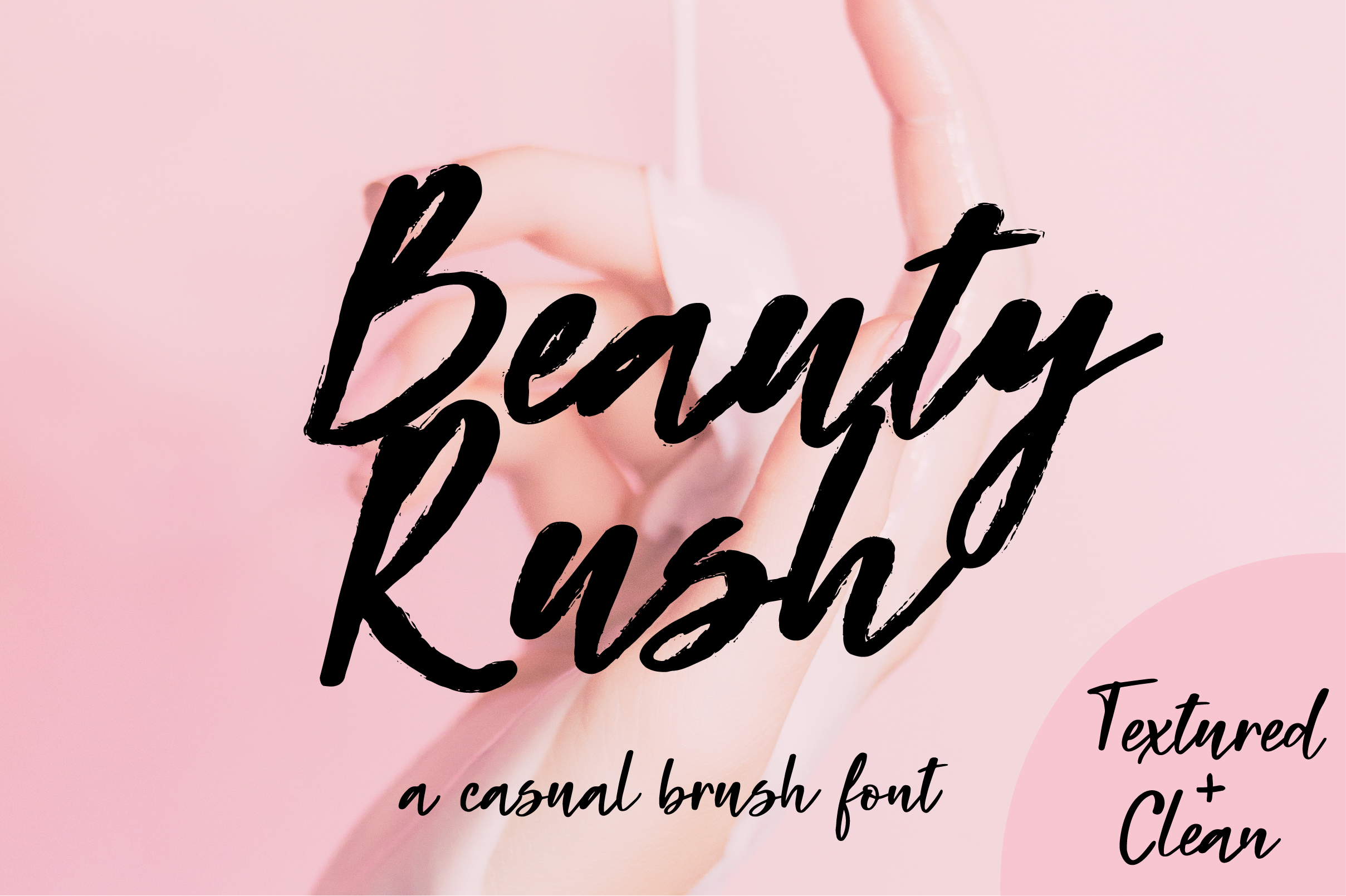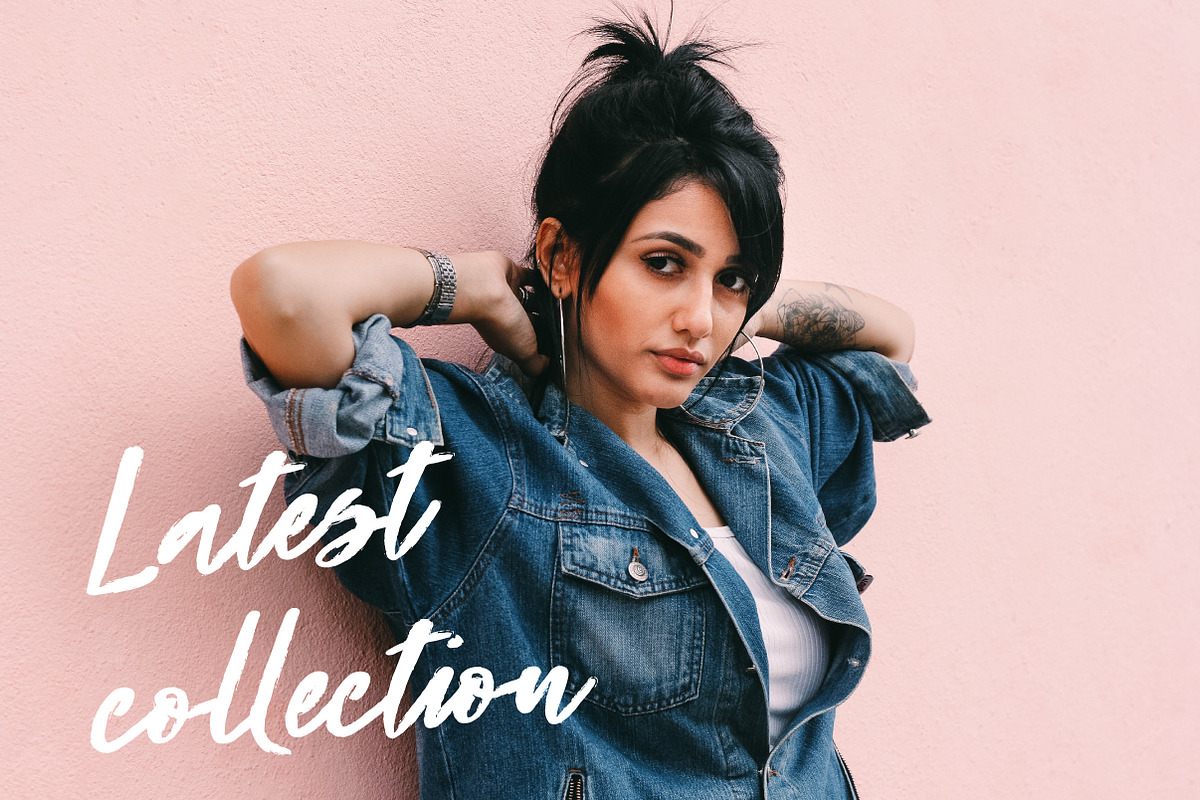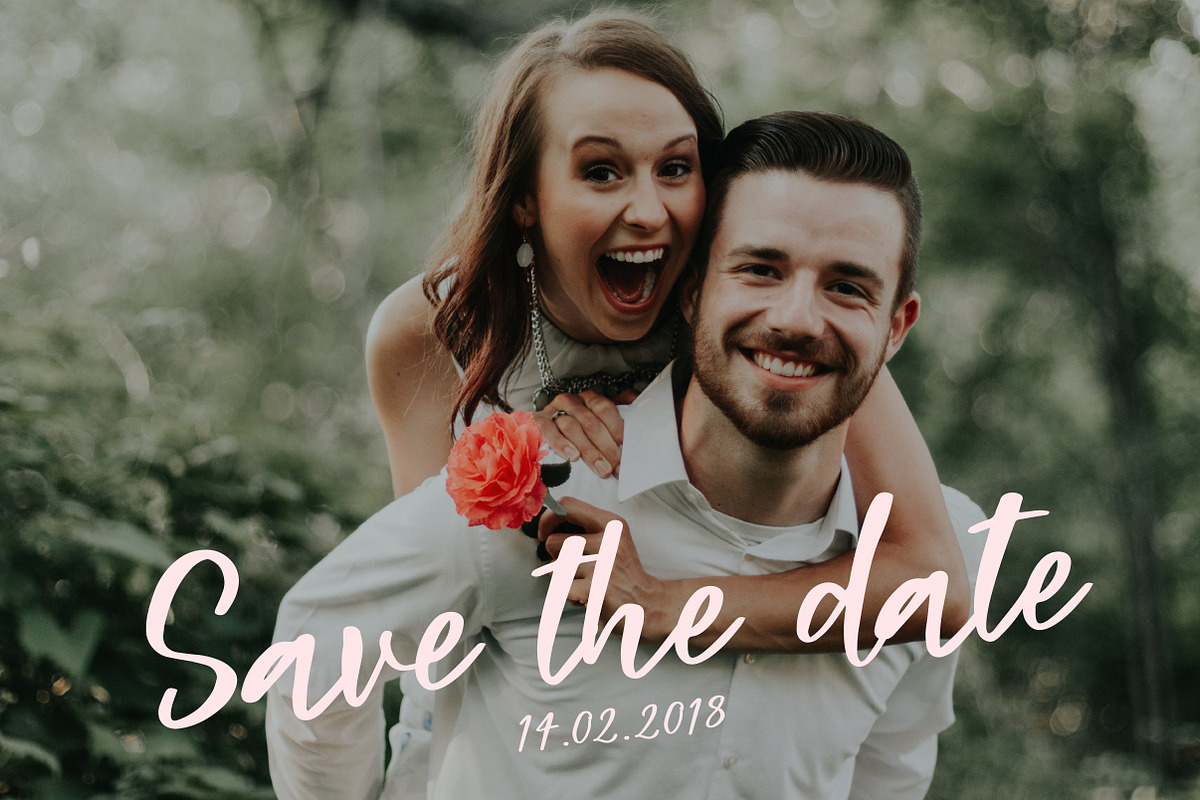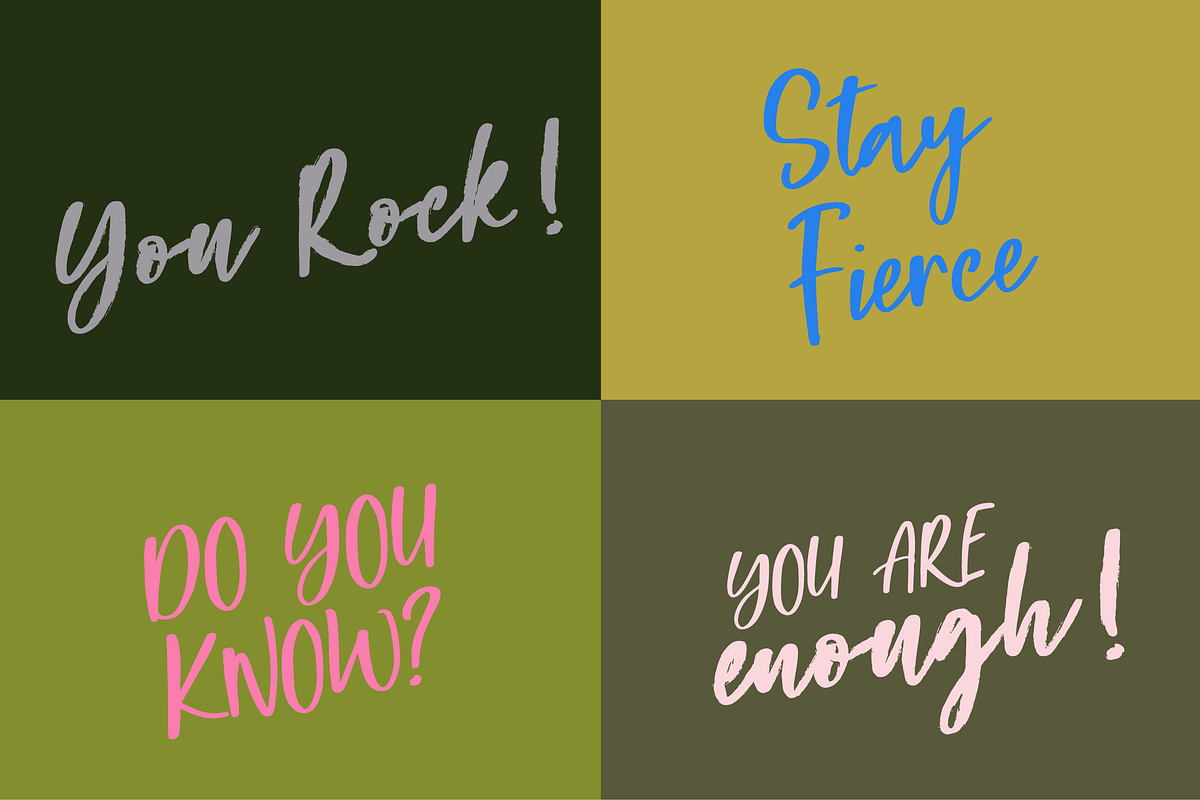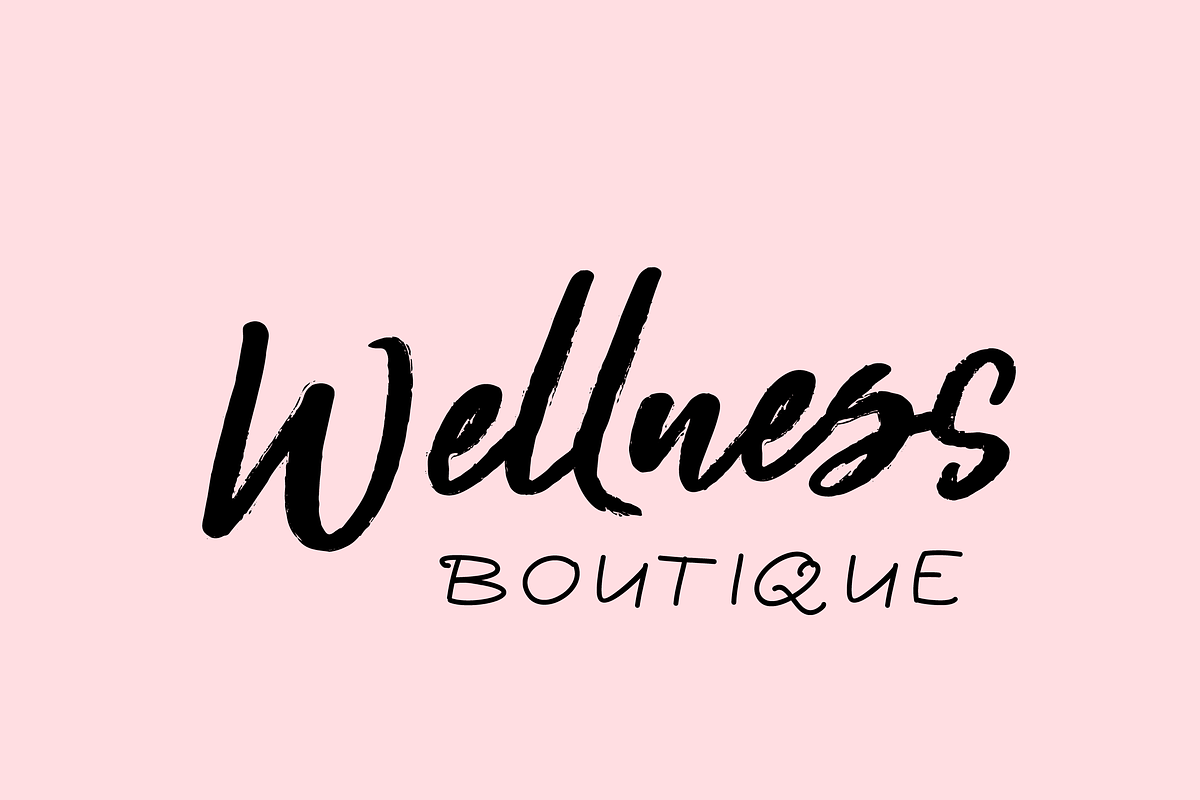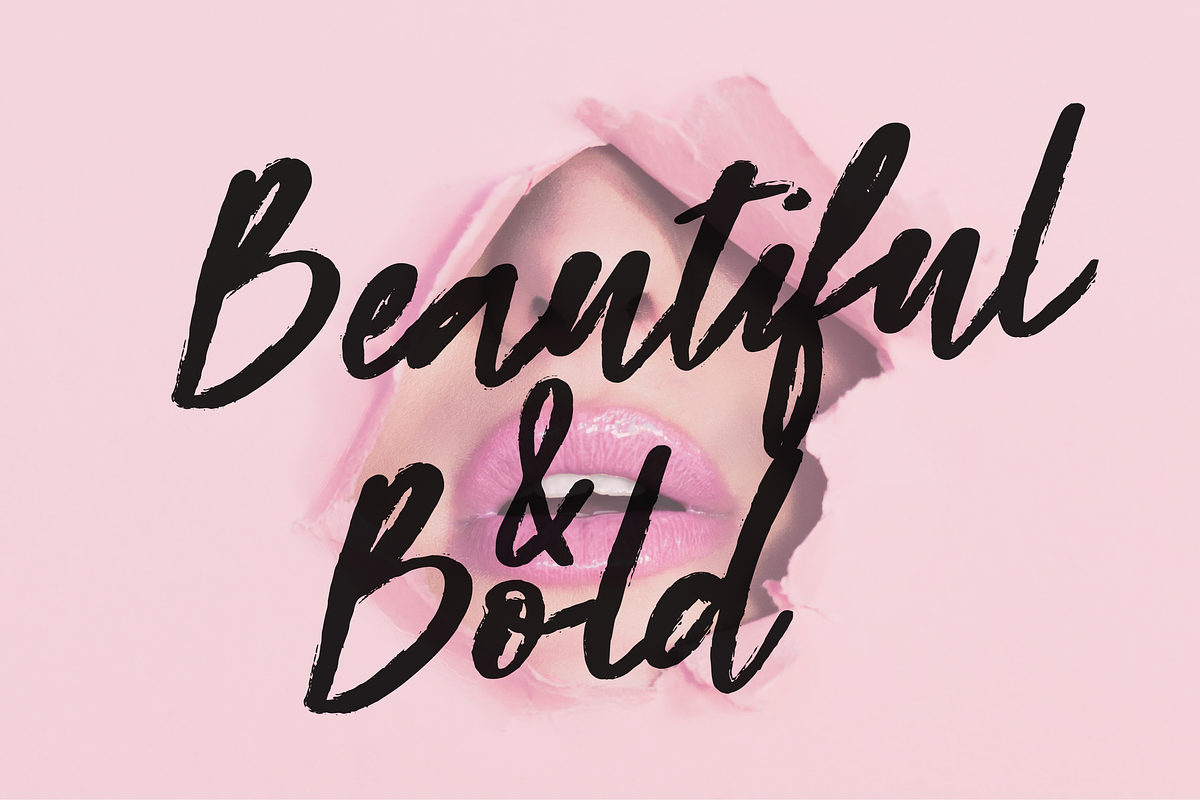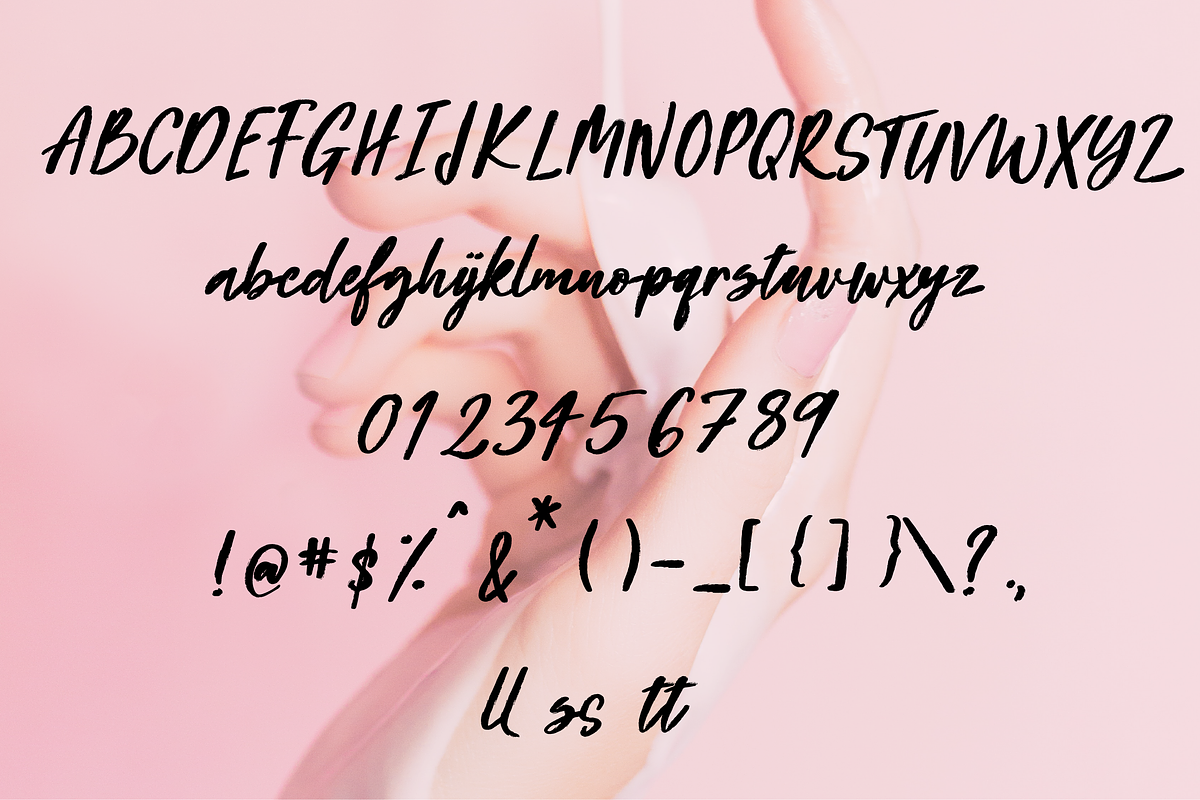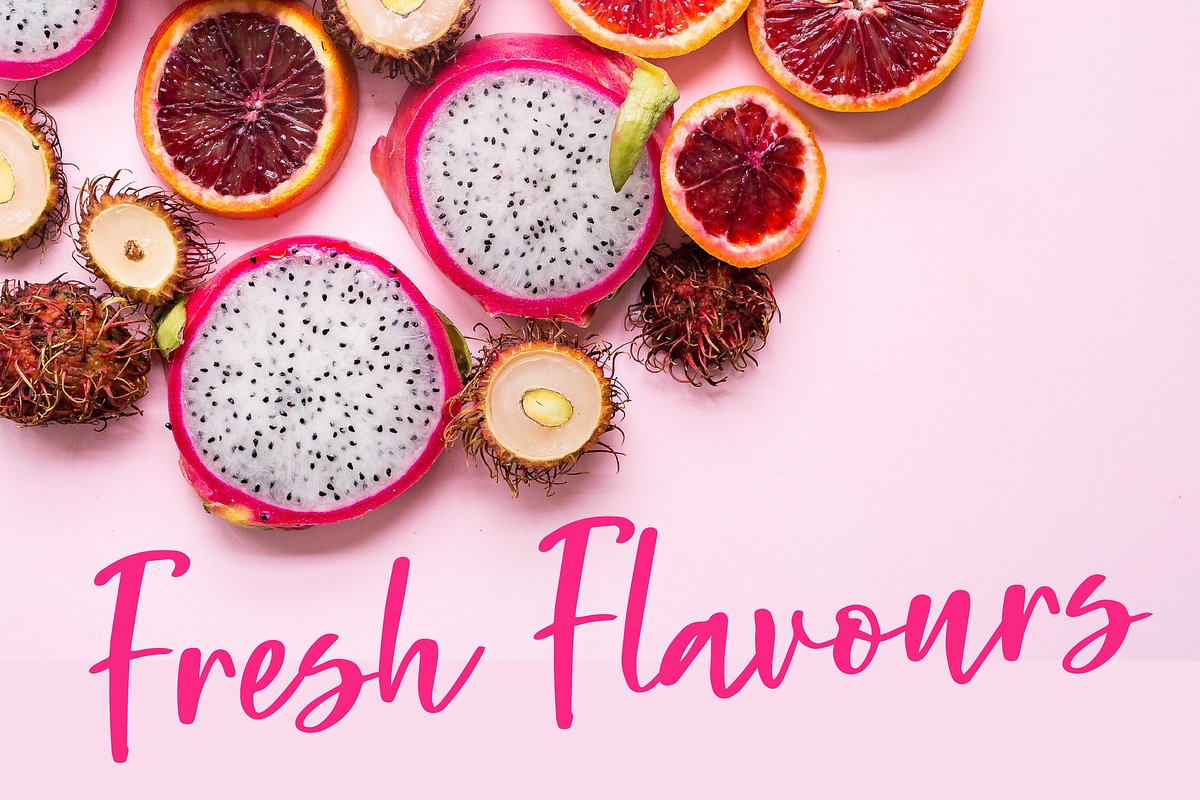
Beauty Rush Font
Introducing Beauty Rush a playful brush font available both as a textured font as well as clean font. The font includes two styles - regular and upright and is perfect for all design needs, from logos, branding, packaging as well as photo overlays, magazine covers, greetings etc.
- Beauty Rush
- Beauty Rush Upright
- Beauty Rush Clean
- Beauty Rush Clean Upright